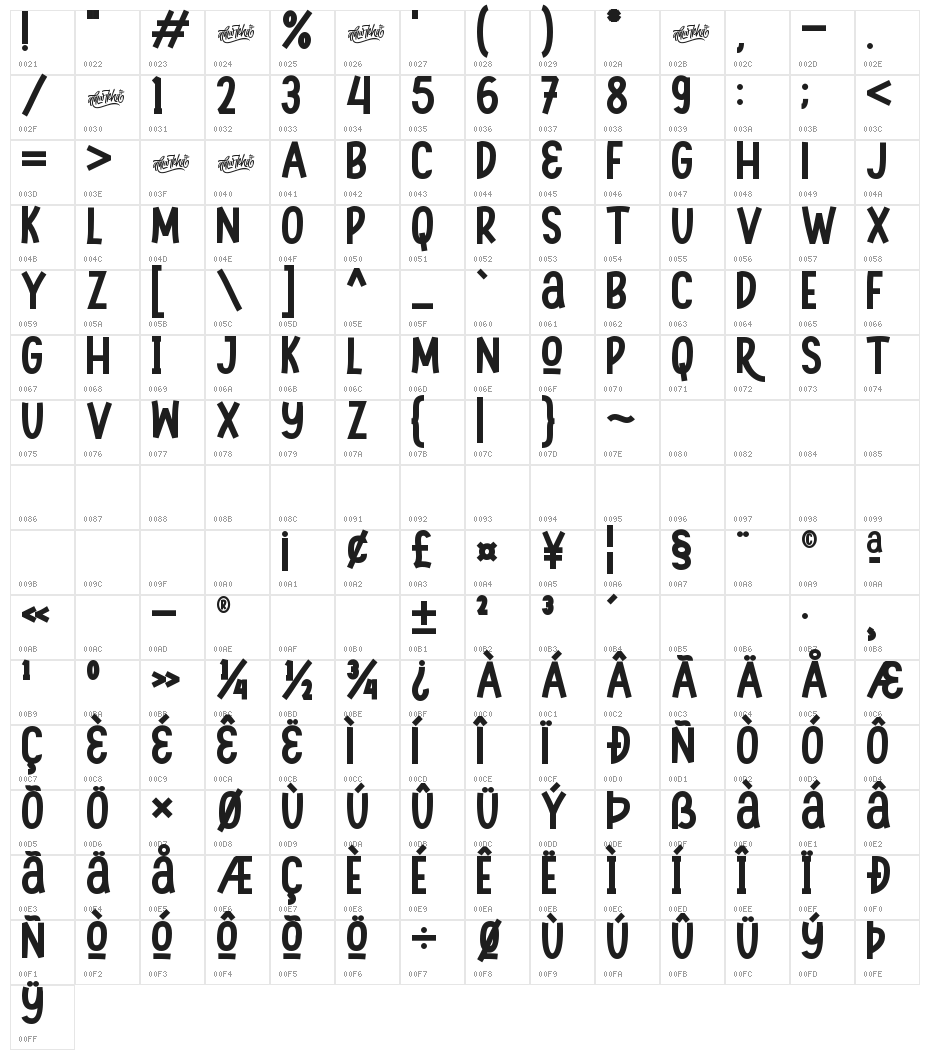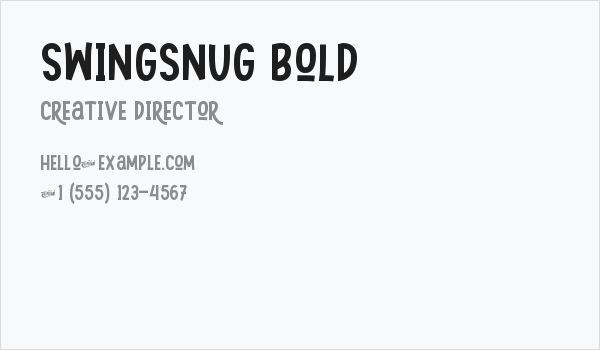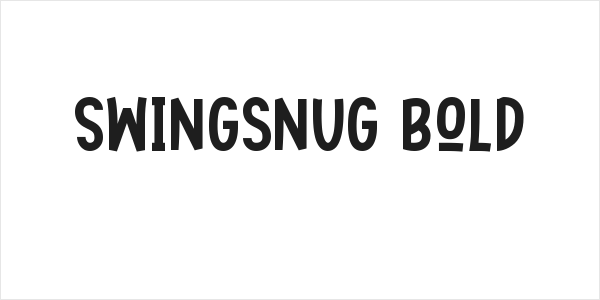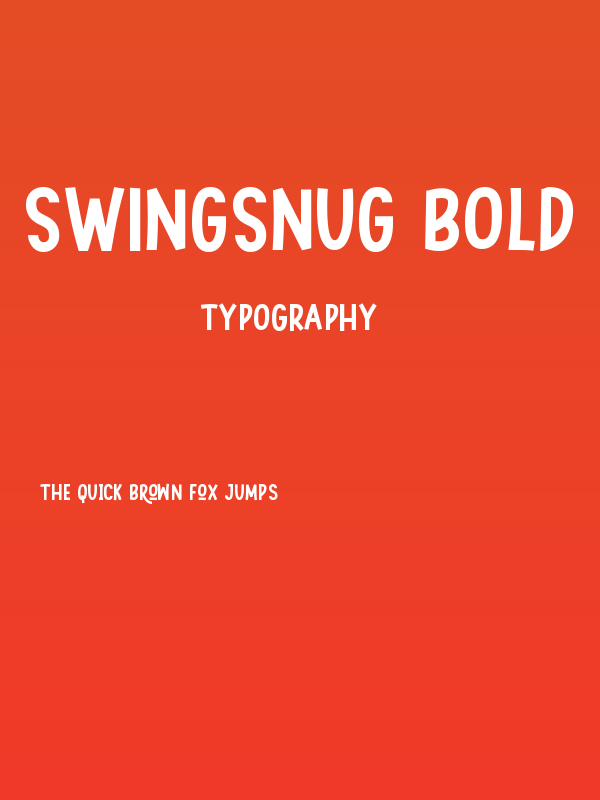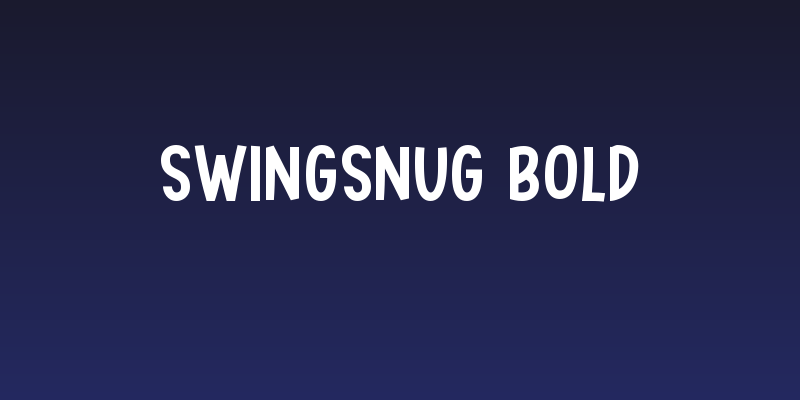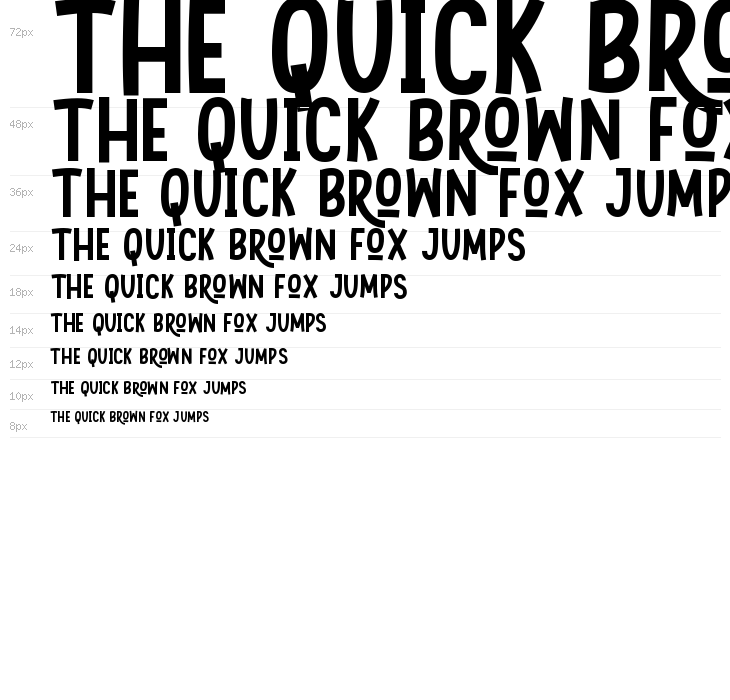
Swingsnug Bold Font
Swingsnug Bold Description
This font features bold, playful characters with a slightly condensed appearance. The letters have a whimsical and energetic style, making them stand out with their thick strokes and rounded edges. The uppercase and lowercase letters maintain a consistent weight, providing a cohesive look. Numbers and special characters are designed with the same boldness, ensuring uniformity across all elements. The font's unique style is perfect for projects that require a fun and lively touch.
| Overall Style | Playful, Energetic |
| Proposed Projects | Ideal for children's books, playful branding, posters, and creative advertisements. |